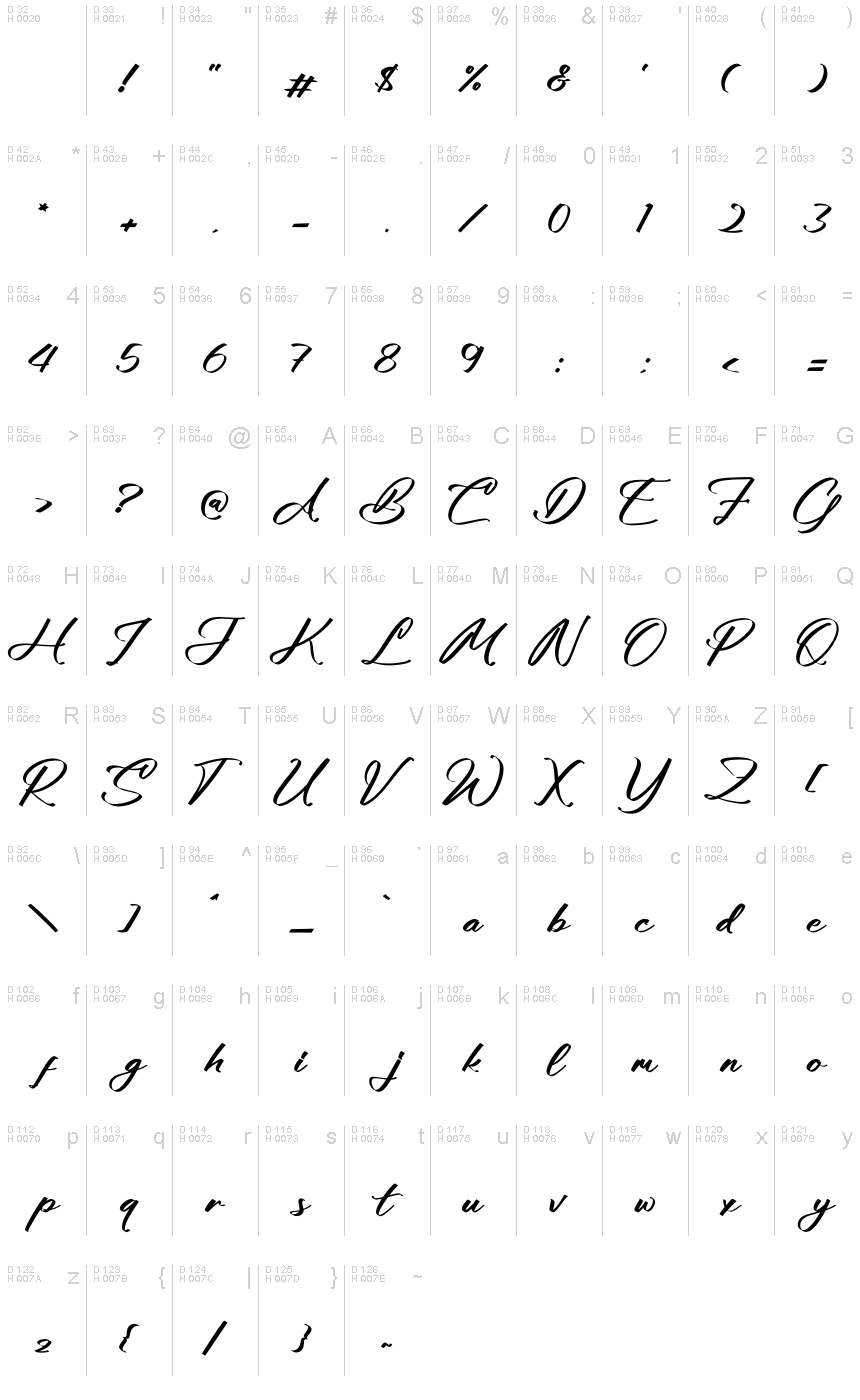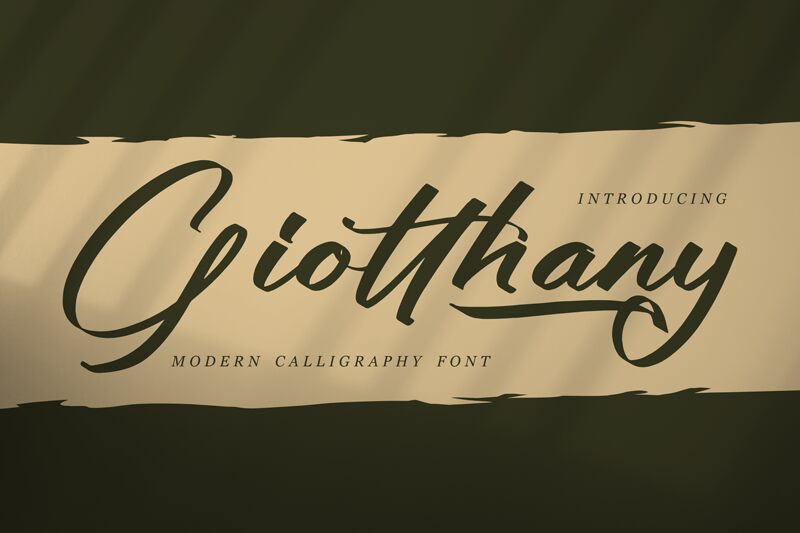
Giotthany
Giotthany font by Letterena Studios exudes an elegant handwritten style that beautifully marries sophistication with artistic flair. Its graceful, flowing lines and distinctive curves inject a personal touch to any design, making it a standout choice for creative projects. The expanded strokes enhance its charm, offering excellent readability while maintaining an aesthetic allure.
Perfect for branding, invitations, and social media graphics, Giotthany's unique characteristics add warmth and personality to digital or print materials. This free font is available for download and is ideal for designers seeking to infuse their work with a touch of individuality and elegance.
Embrace the creative possibilities with Giotthany font—an exquisite addition to your typography repertoire.